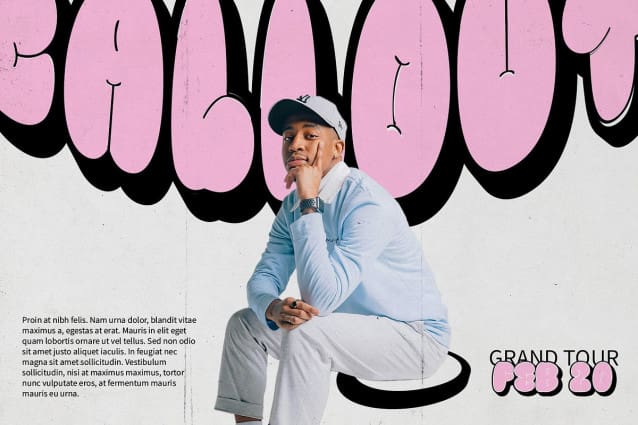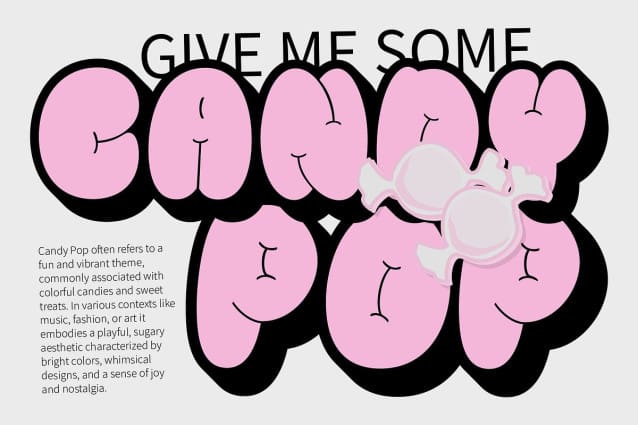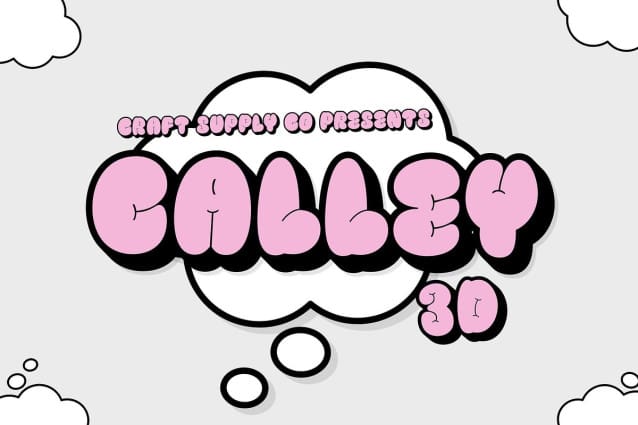
Calley 3D Font
Calley 3D Font is a vibrant and playful display font that combines bold, bubble-like shapes with a dynamic 3D effect. The round, plump letterforms create a friendly, approachable vibe, making this font perfect for designs that aim to spread joy and positivity. The added 3D effect enhances the font’s energy, giving it depth and dimension that draws attention, making it stand out in any creative project.
Playful and Eye-Catching Design The font’s bubbly, chunky letterforms evoke a sense of fun, playfulness, and lightheartedness, while the 3D effect adds an extra layer of excitement and engagement. This combination of bold shapes and depth makes Calley 3D ideal for playful, youthful designs. It’s a font that doesn’t just communicate — it makes people smile.
Perfect for Fun and Youthful Projects Calley 3D is designed with projects that require a joyful, attention-grabbing appearance in mind. Whether it’s event posters, children’s promotional materials, or branding that wants to stand out with a fun and energetic style, this font is the perfect choice. Its playful vibe makes it ideal for projects targeting a young audience or anyone seeking to bring a bit of happiness and cheer into their designs.